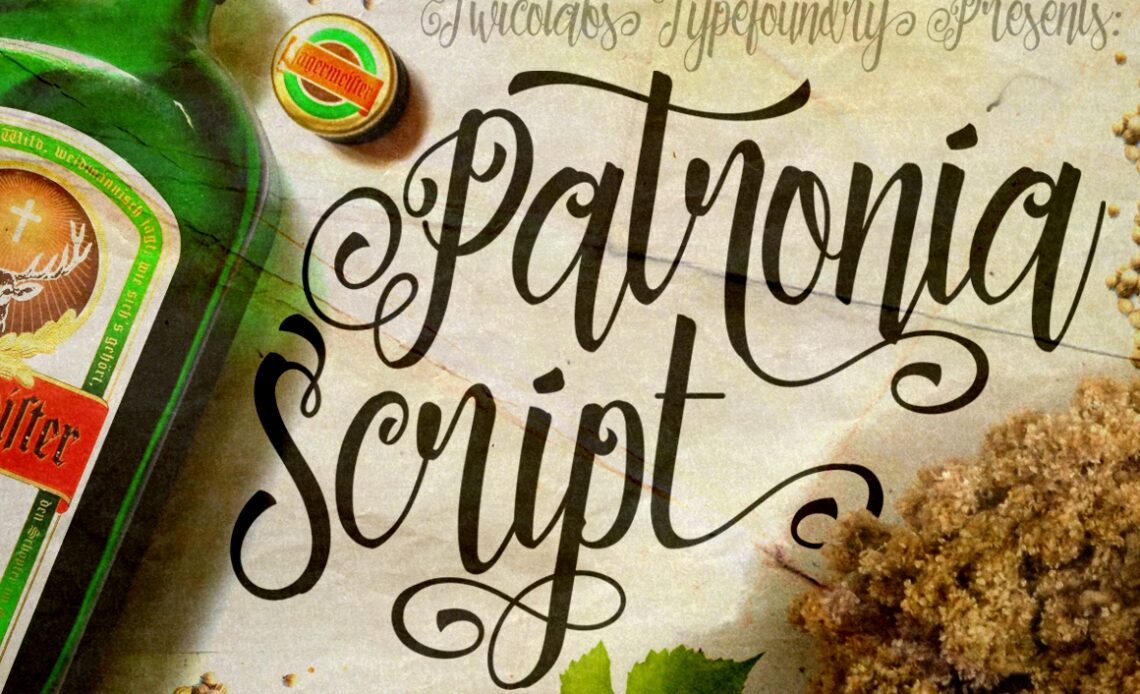
Prepare yourself to be captivated by Patronia Font, a script typeface that dances across the digital canvas with its enchanting strokes and charismatic presence. This brush-lettering inspired creation is the brainchild of Fontdation, combining the allure of thick and thin lines, the intrigue of loose and tight kerning, and the magic of unique baseline combinations. The result is an authentic handwritten feel that breathes life into your designs.
Unleash the power of Patronia Font as a headline, where its bold design and intricate flourishes command attention like a captivating performance. Let your words take center stage, adorned with the elegance and charm of Patronia's script. Experience the harmony of Patronia's thick and thin strokes, guiding the reader's eyes through your masterpiece.
With Patronia Font, every letter becomes a brushstroke, a stroke of genius that paints a picture of sophistication and style. Its unique baseline combinations create a dynamic rhythm, adding visual interest and intrigue to your designs. Embrace the beauty of imperfection, as Patronia's loose and tight kerning mimics the natural flow of handwriting, evoking a sense of authenticity and approachability.
Transform your creative visions into reality with Patronia Font. Let its bold personality elevate your headlines, making them shine like stars in the digital sky. Immerse yourself in the world of Patronia, where creativity knows no bounds, and your words become works of art.